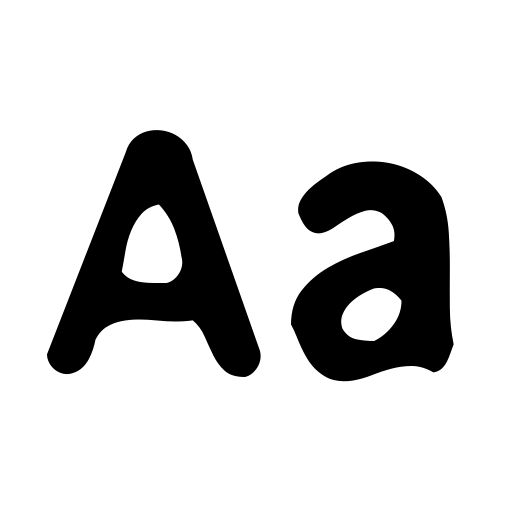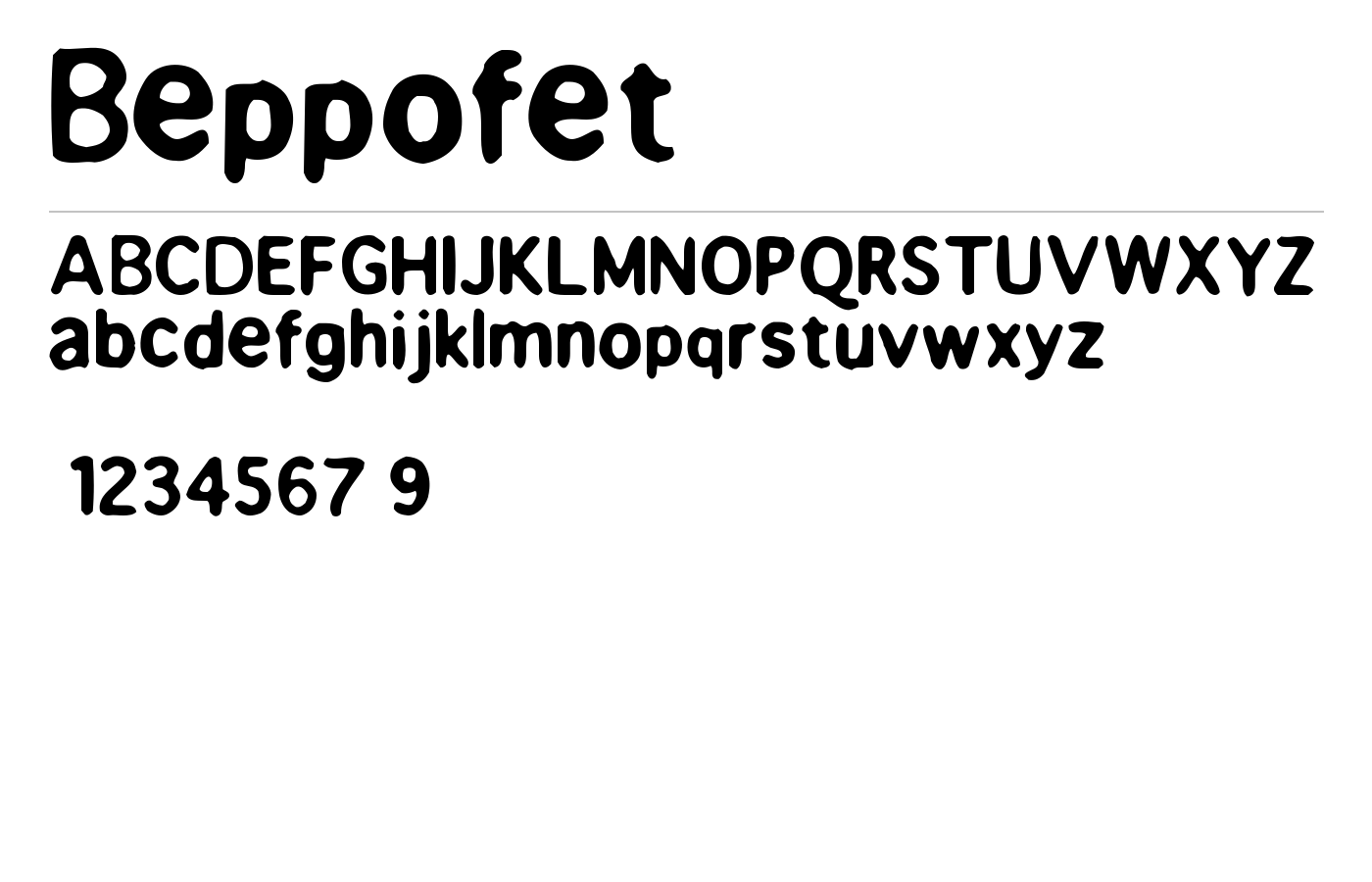
Beppofet is a playful, rounded sans serif font with a hand-drawn feel that brings warmth and friendliness to any design. Its irregular shapes and moderate weight make it ideal for informal, creative projects such as children's books, casual branding, or fun headlines. This font works best where a personal, approachable tone is desired, adding charm without sacrificing readability.
Beppofet Font
About Beppofet Font